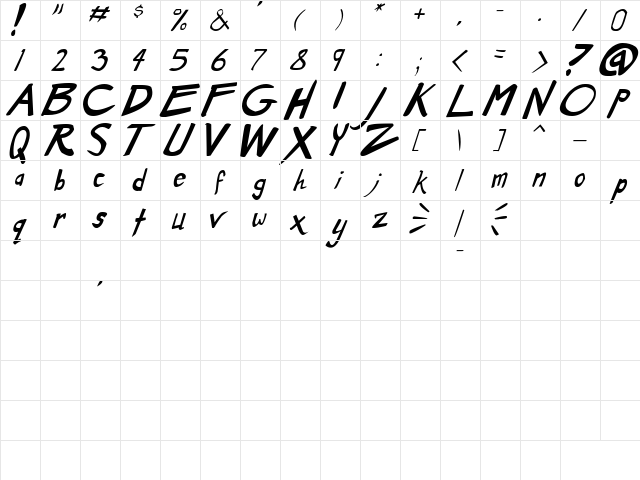
Dirty Duo Bold Italic
Design Context for Dirty Duo Typeface
Dirty Duo is a composed and adaptable typeface that performs quietly and consistently across a wide range of design contexts. Its italic angle brings a sense of urgency and motion to the letterforms. The heavy weight commands attention and anchors typographic hierarchies.
Pro Tip: Try Dirty Duo for annotation and caption copy alongside an upright companion — the contrast in angle creates a dynamic but ordered typographic system.